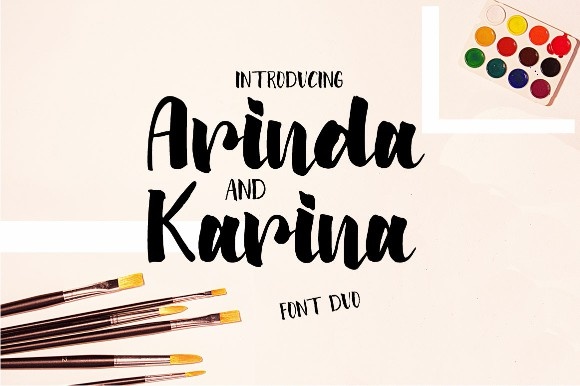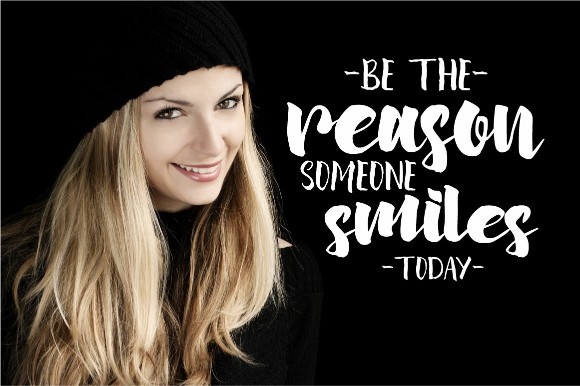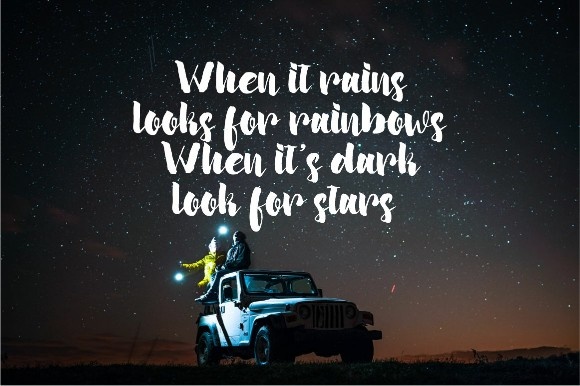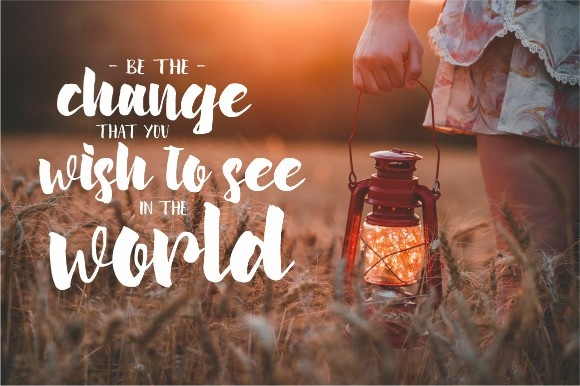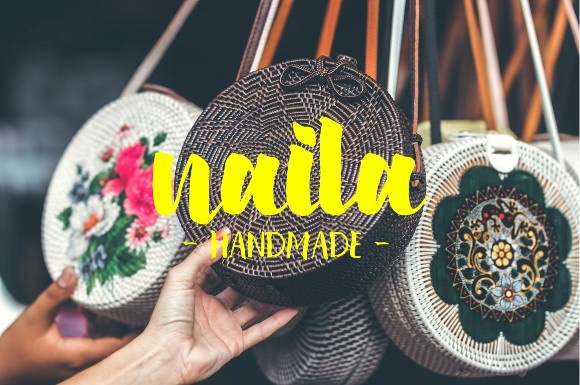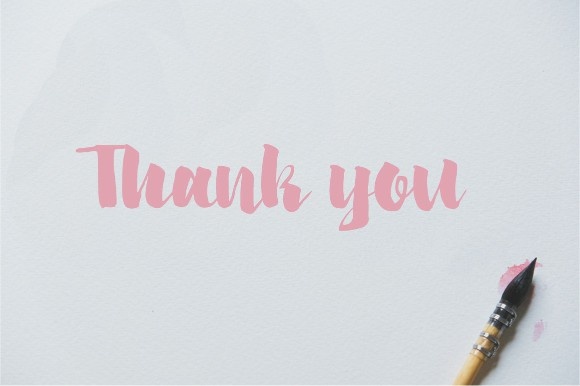
HomeScript FontsArinda & Karina Duo Font Script Fonts Arinda & Karina Duo Font FacebookXPinterestWhatsApp Arinda & Karina Duo Font Poster 2 Arinda & Karina Duo Font Poster 3 Arinda & Karina Duo Font Poster 4 Arinda & Karina Duo Font Poster 5 Arinda & Karina Duo Font Poster 6 About Arinda & Karina Duo Font The Arinda & Karina is a beutiful font duo with a handmade brush style. DOWNLOAD ON CREATIVE FABRICAThis font is sold and delivered by Creative Fabrica. Font Canyon may earn a commission if you buy through this link. People also explored Emila Script Font Allitta Font Hey Benito Font Agathiqy Font Costa Font Panoptica Eggshell Mosaic Font Curly Nightmare Font New Horizons Font 380 0 TagsArinda & Karina Duo Font Previous articleRoastink Script FontNext articleHolly Jolly Font LEAVE A REPLY Cancel reply Comment: Please enter your comment! Name:* Please enter your name here Email:* You have entered an incorrect email address! Please enter your email address here Website: Save my name, email, and website in this browser for the next time I comment. Personal Use Free The Winter Personal Use Free Read more about this font Baby Cute Personal Use Free Read more about this font Sefiya Personal Use Free Read more about this font Broodfath Personal Use Free Read more about this font BLOG Best Fonts for YouTube Videos: Make Your Thumbnails Stand Out Best Fonts for YouTube Videos: Make Your Thumbnails Stand Out Choosing the right font can make a massive difference in how your YouTube videos perform.... How to Cut Any Font on Cricut: Convert a Font to SVG (Free) Free vs Paid Fonts: Why Investing in Premium Fonts Is Worth It Free Fonts Risk: Why Free Fonts Can Be Dangerous for Designers